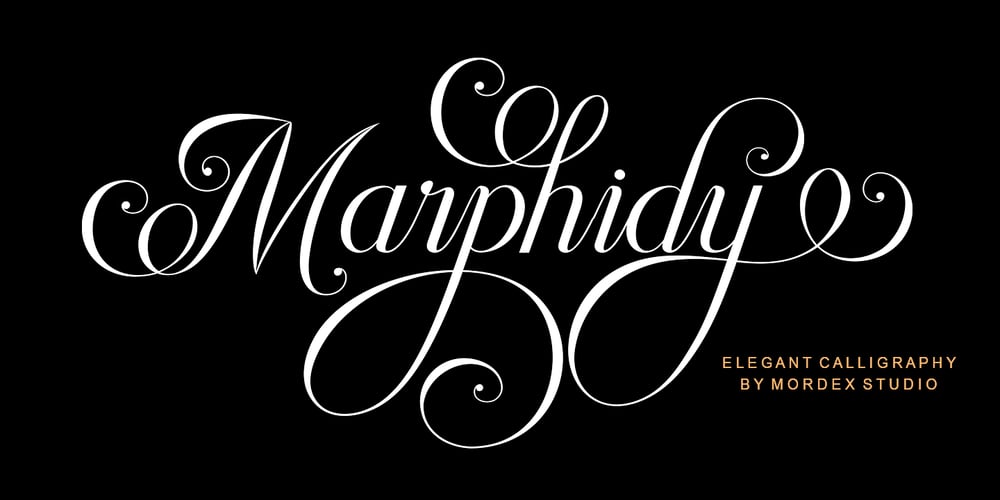
Marphidy Font Family was designed by Teuku Hamzah and published by Mordex Studio. Marphidy contains 1 styles and family package options. Marphidy Script is a calligraphic script font that features a beautiful changing character, a classic decorative brass script type with a modern touch, designed with high detail to bring the elegance of style. Marphidy Script is attractive as its typography is soft, clean, feminine, sensual, glamorous, simple and very easy to read, because there are many good letter connections. I also offer some vibrant style alternatives for many letters. The classic style is suitable to be applied in various formal forms such as invitations, labels, restaurant menus, logos, fashion, make-up, stationery, novels, magazines, books, greeting / wedding cards, packaging, labels.